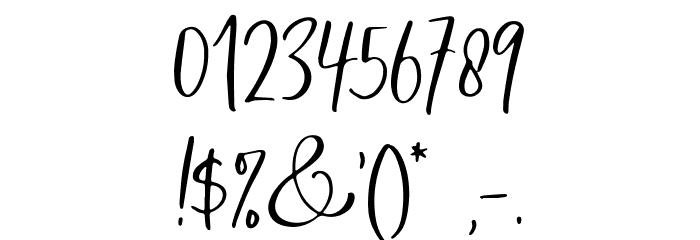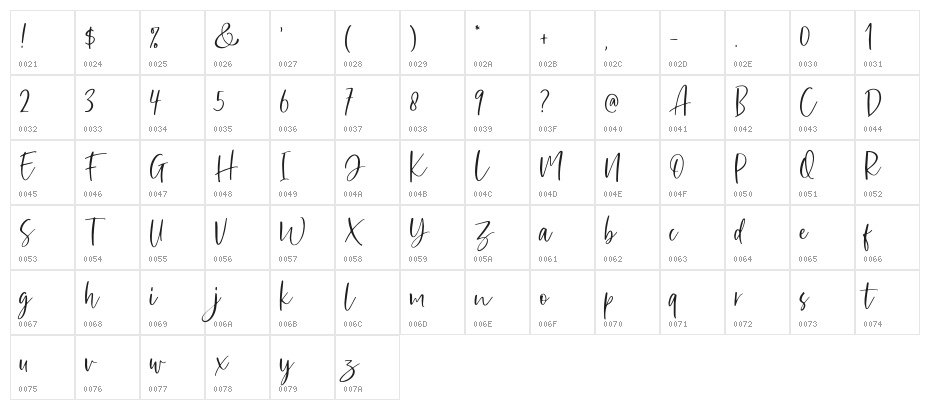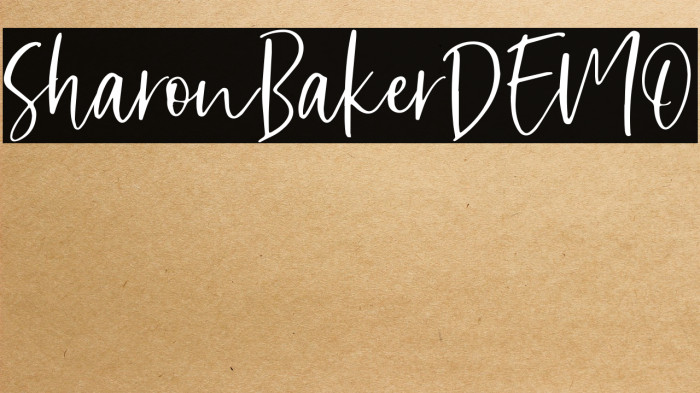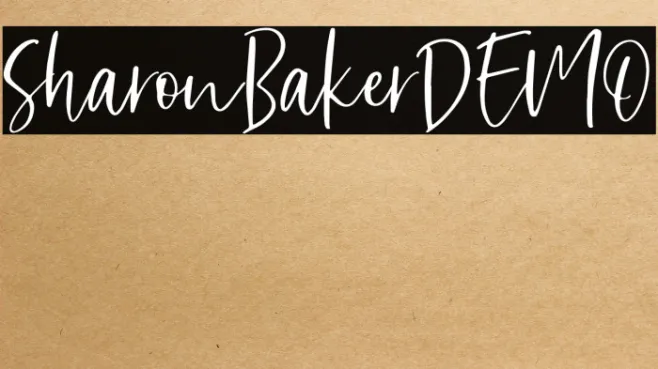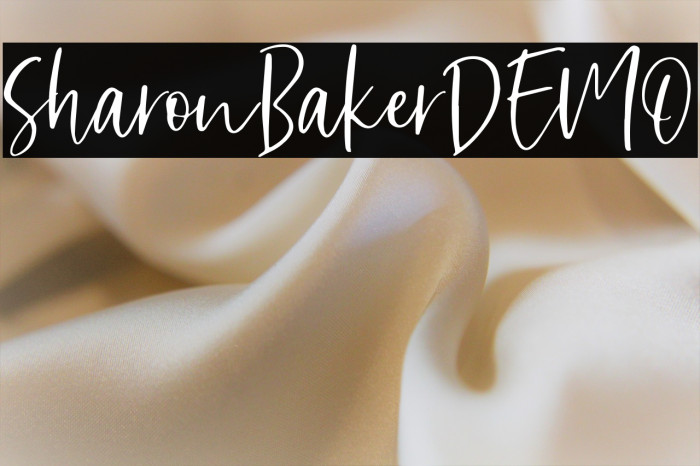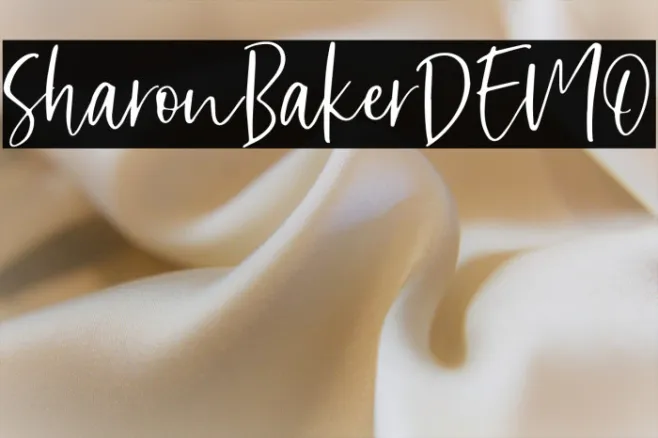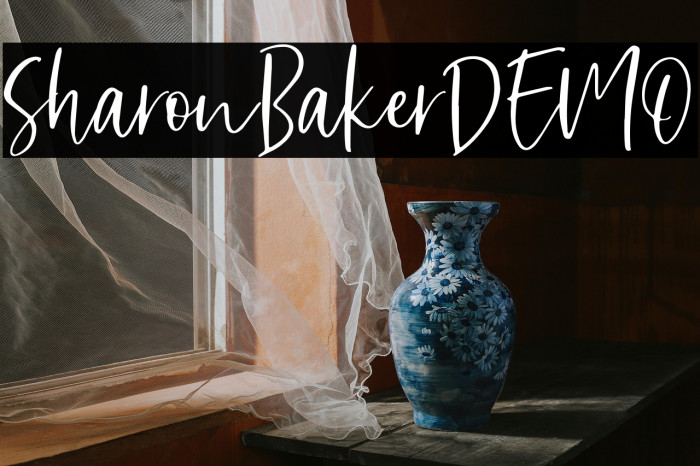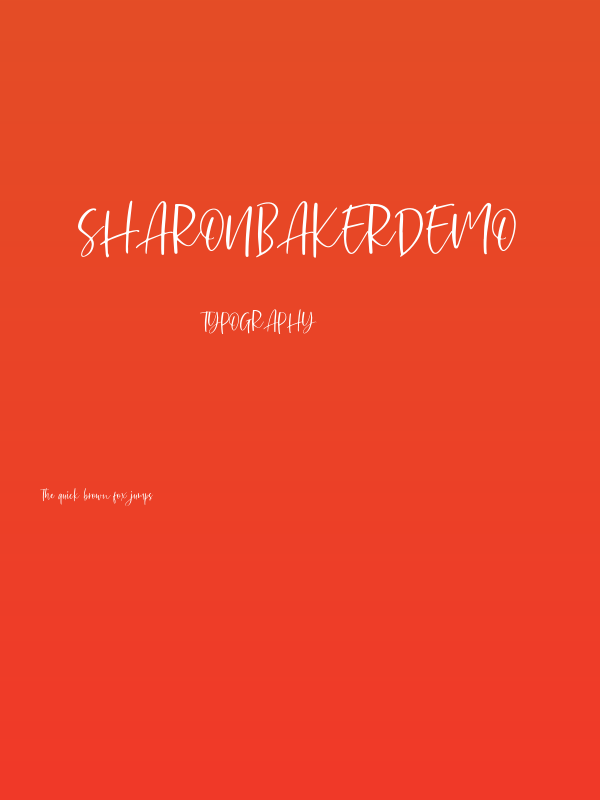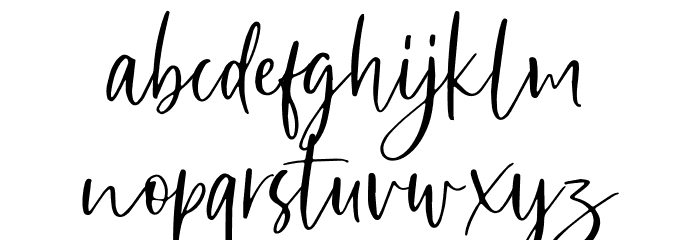
SharonBakerDEMO Font
SharonBakerDEMO Description
This font features a lively and expressive handwritten style, characterized by its fluid and dynamic strokes. The letters have a natural flow, with varying thickness that adds a sense of movement and personality. The uppercase letters are bold and prominent, while the lowercase letters maintain a consistent rhythm, enhancing readability. The numerals and special characters are crafted with the same attention to detail, ensuring a cohesive look across all elements. This font exudes a casual yet sophisticated charm, making it versatile for various design applications.
Use CaseLogos, Headlines, Invitations
Proposed ProjectsIdeal for wedding invitations, greeting cards, branding projects, and social media graphics.